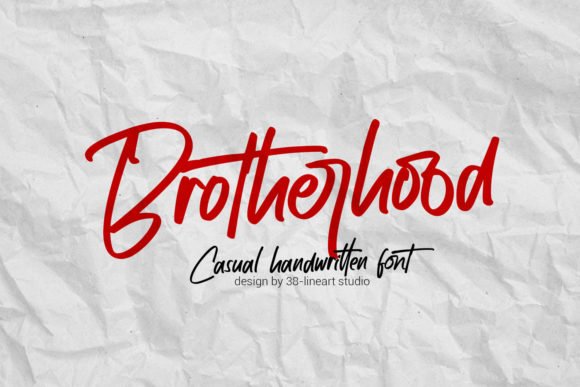
Discover the Secret to Elevating Your Designs with the Brotherhood Font
Remember that moment when you finally nailed the perfect typography for your project? The words flowed effortlessly, and your design came alive? It’s moments like those that remind us why we love being designers. But what makes the difference between a good design and a great one? For many creatives, the answer lies in the perfect font – and that’s where the Brotherhood Font comes in.
This bold and fun script font is more than just a pretty face; it’s a game-changer for designers looking to add a playful touch to their projects. With its versatility and charm, the Brotherhood Font is the perfect addition to any design arsenal. Whether you’re working on a branding project, creating a social media campaign, or designing a wedding invitation, this font is sure to elevate your work to the next level.
Brotherhood Font Key Features
- Unique Characteristics: The Brotherhood Font features a distinctive, elegant script with intricate details and flourishes, making it ideal for formal and decorative purposes.
Designer Review: Brotherhood Font
Overall, I’m quite impressed with the Brotherhood Font. It has a unique blend of modern and classic elements that make it stand out from the crowd. ✨ One of the things that works well is its versatility – it can be used for both formal and informal designs, making it a great choice for a wide range of projects. ✨ The font also has a strong sense of community and unity, which is perfect for branding and marketing materials.
However, there are some limitations to consider. ⚠️ One of the main issues is the font’s readability at smaller sizes. While it looks great at larger sizes, it can become quite blurry and difficult to read when scaled down. ⚠️ Additionally, the font’s unique style can be a bit polarizing – some people may love it, while others may find it too unconventional.
- Unique blend of modern and classic elements
- Versatile and suitable for formal and informal designs
- Strong sense of community and unity
- Can be used for branding and marketing materials
Overall, I would recommend the Brotherhood Font for designers who are looking for a unique and versatile font. While it may have some limitations, its strengths make it a great choice for a wide range of projects.
The Brotherhood Font is ideal for creating bold, masculine designs. Use it for:
- Men’s fashion branding and advertising
- Outdoor and sports-related designs
- Strong, industrial-themed graphics
Remember to pair the Brotherhood Font with a clean and simple design to achieve the best results.